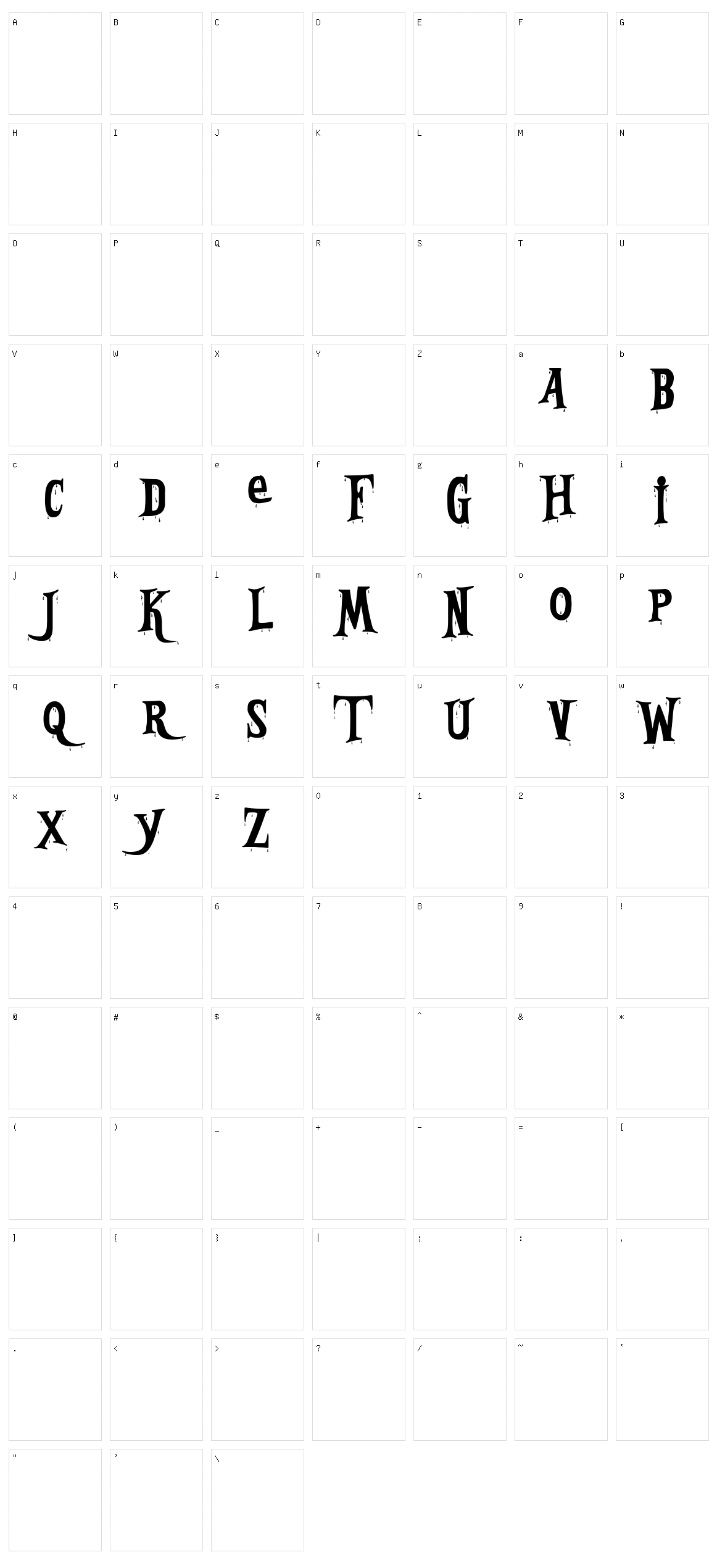
The free font Bleeding Freaks is carefully designed by Norfok Incredible Font Design, showcasing a thoughtful balance of creativity and usability and falls under the Horror font style. When you download the ZIP file, it contains only 18.46 KB of font files, making it lightweight and quick to download. Please review the license details below to understand permitted usage and distribution rights. If license information is not available, we recommend using this font for personal projects only or contacting the author directly for commercial usage permissions.